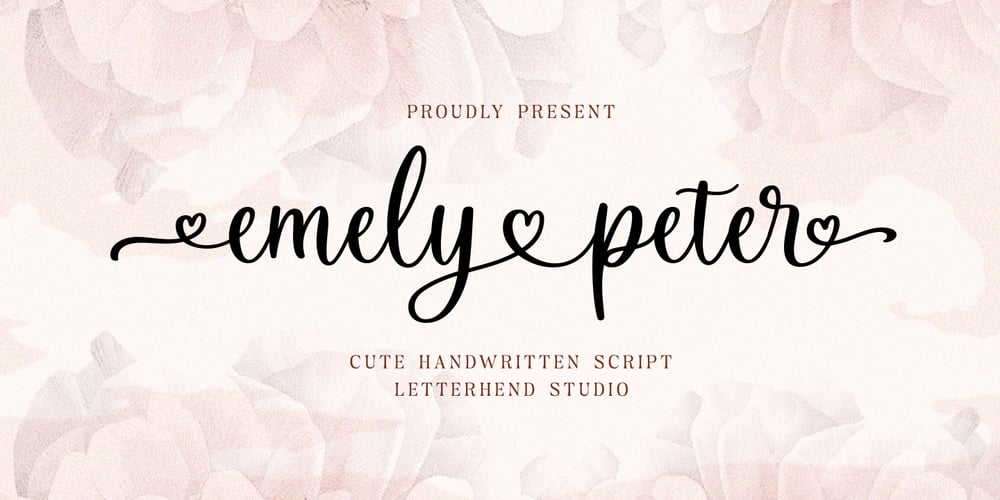
Emely and Peter Font Family was designed by Hendry Juanda and published by Letterhend. Emely and Peter contains 1 styles and family package options. Emely and Peter is a beautiful modern calligraphy script with love theme. The swashes and love ornaments makes this font looks suitable for romance, wedding, feminine theme. This type of font also perfectly made to be applied especially in logo, and the other various formal forms such as invitations, labels, logos, magazines, books, greeting / wedding cards, packaging, fashion, make up, stationery, novels, labels or any type of advertising purpose.Features : uppercase & lowercase numbers and punctuation multilingual alternates and ligatures swashes PUA encoded We highly recommend using a program that supports OpenType features and Glyphs panels like many of Adobe apps and Corel Draw, so you can see and access all Glyph variations.